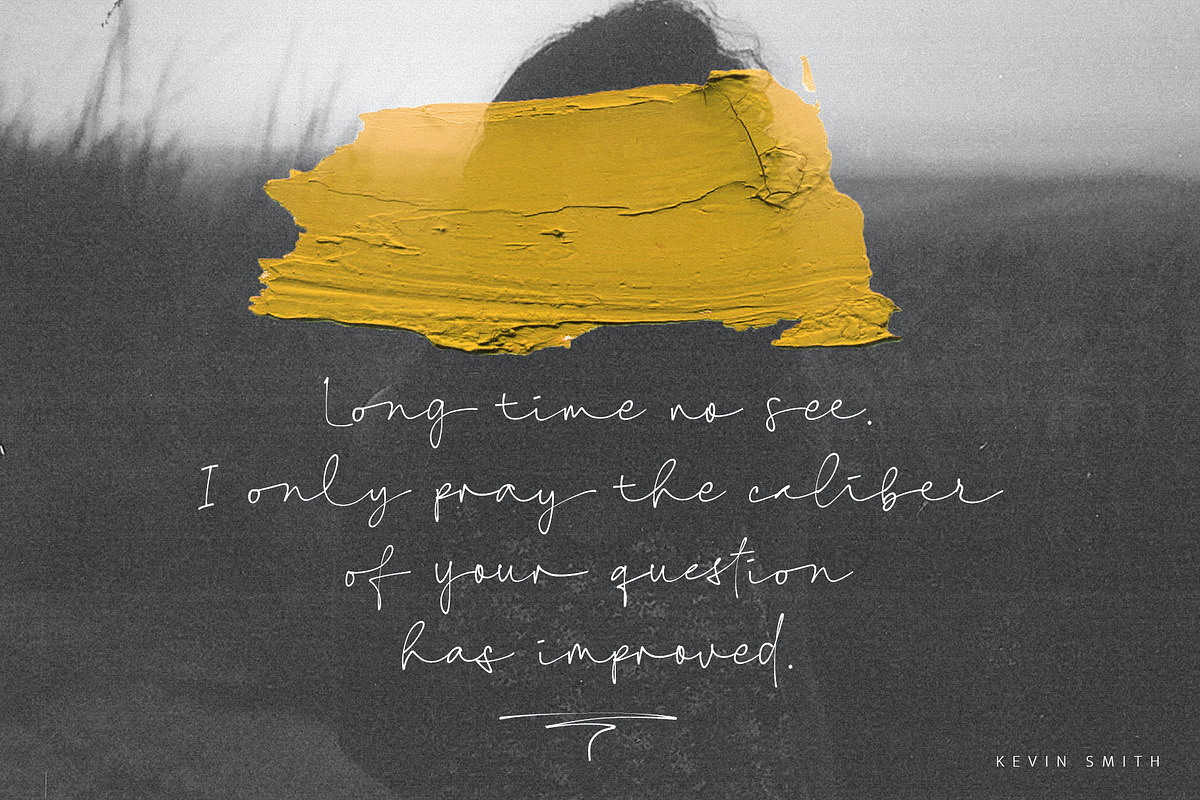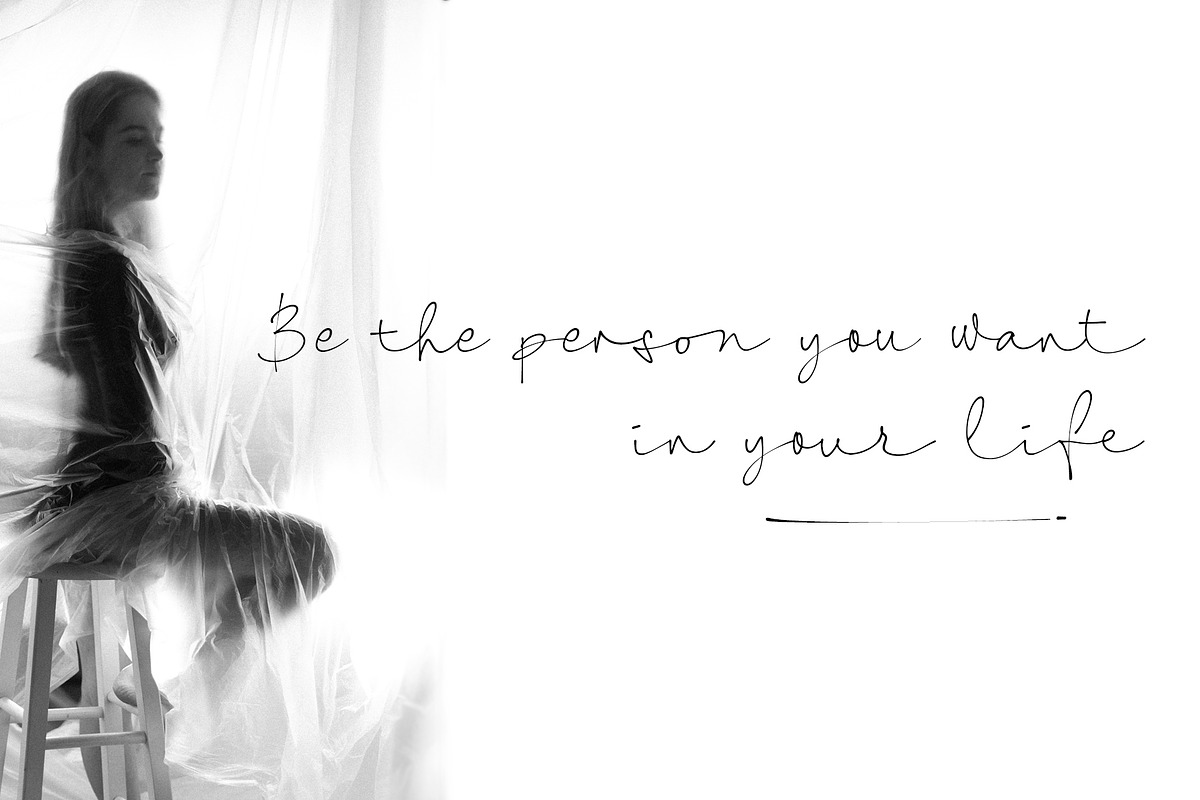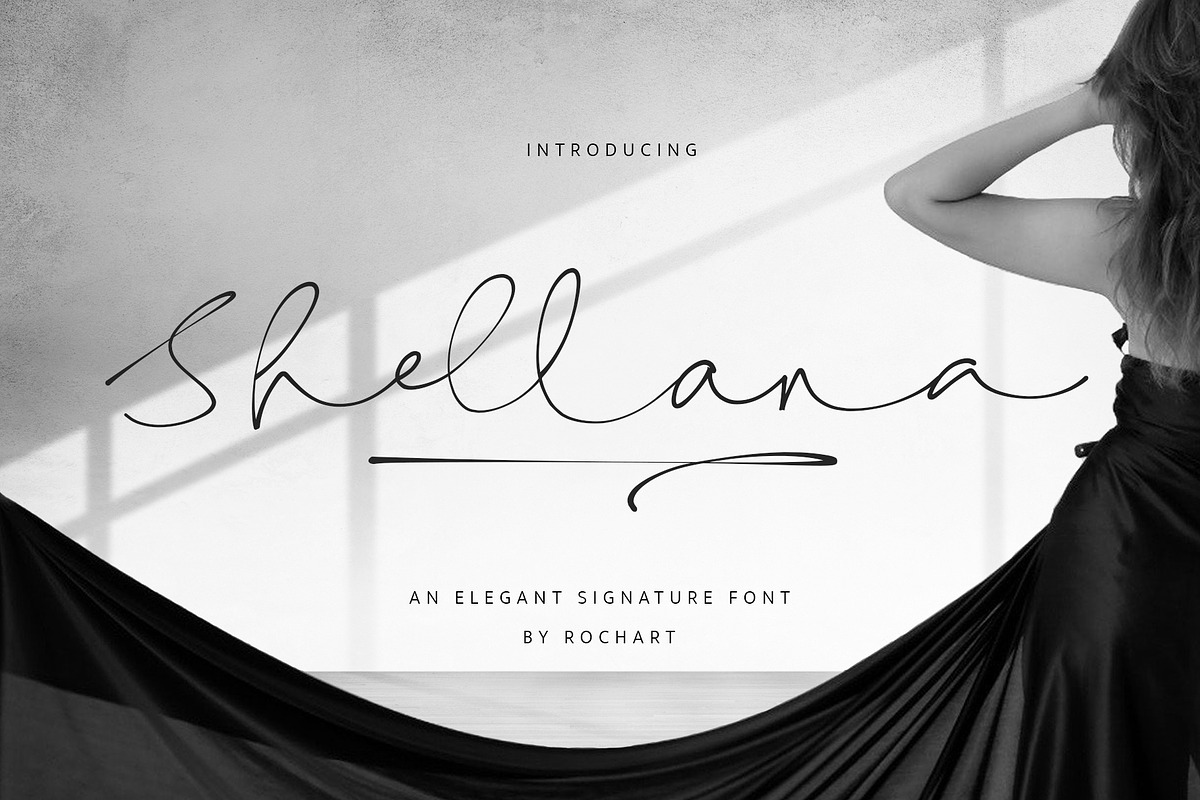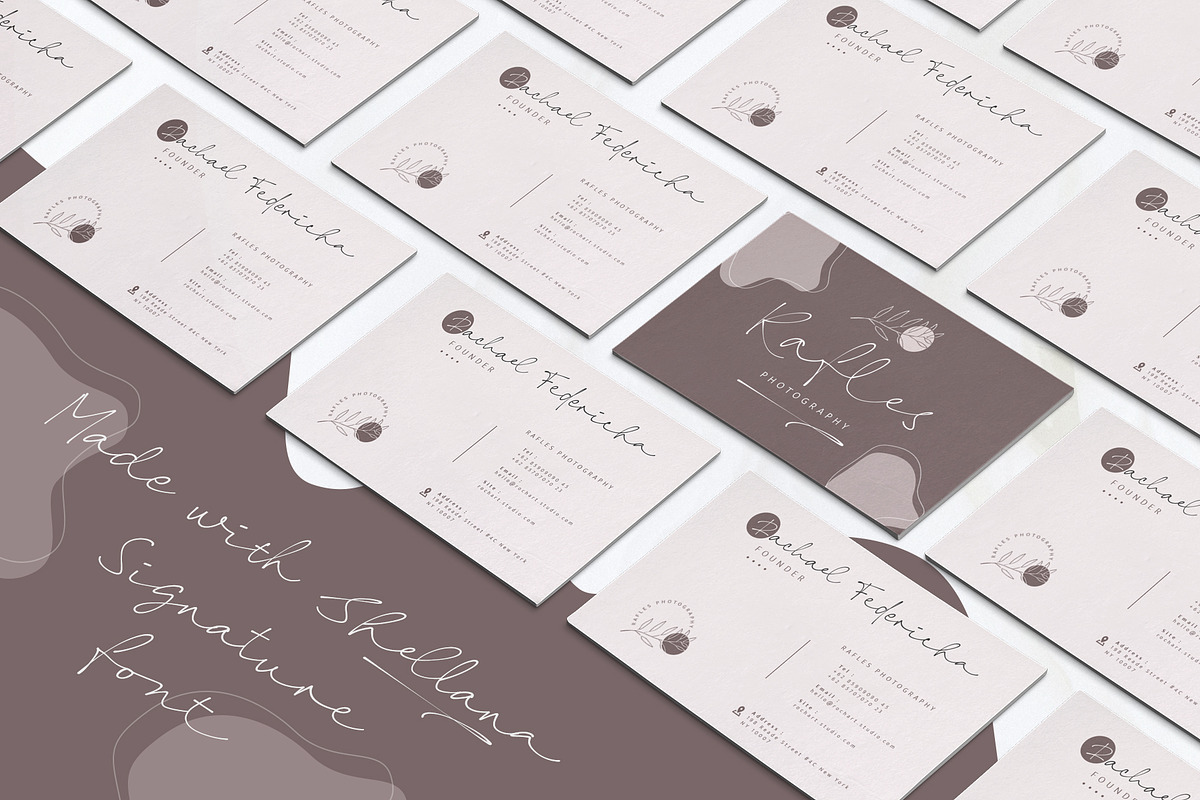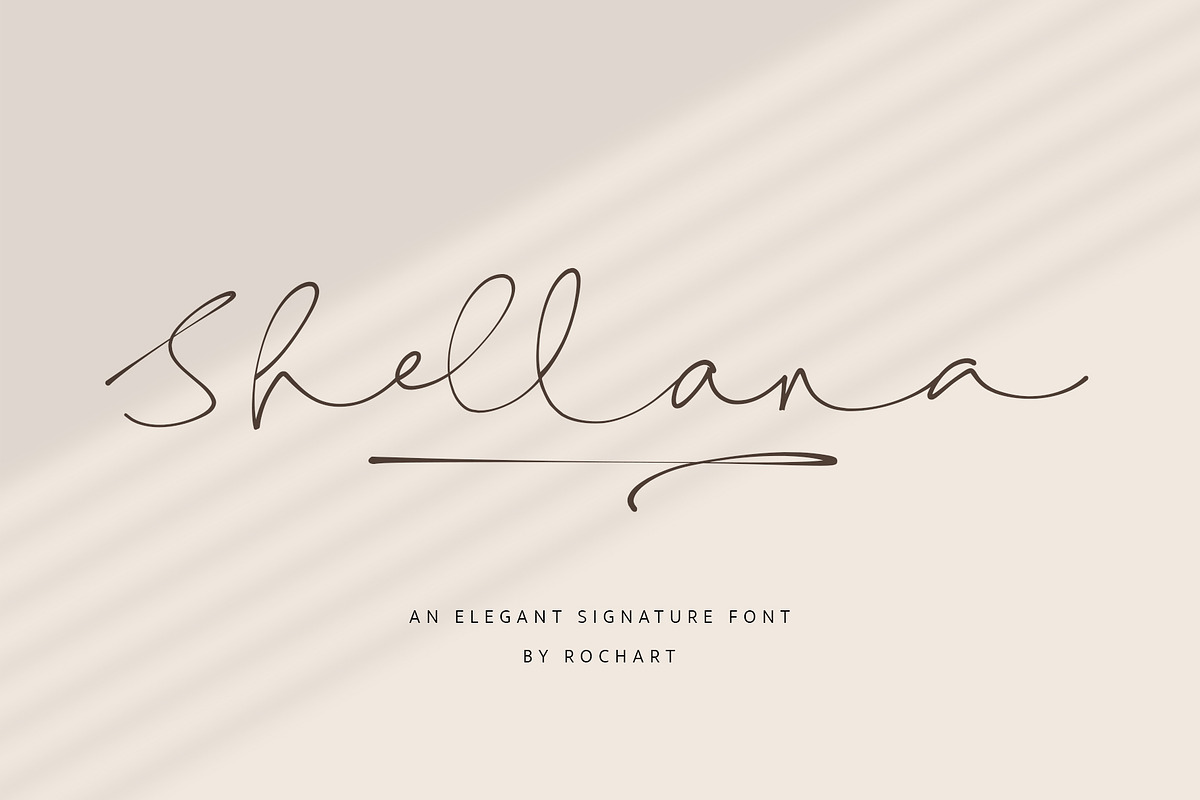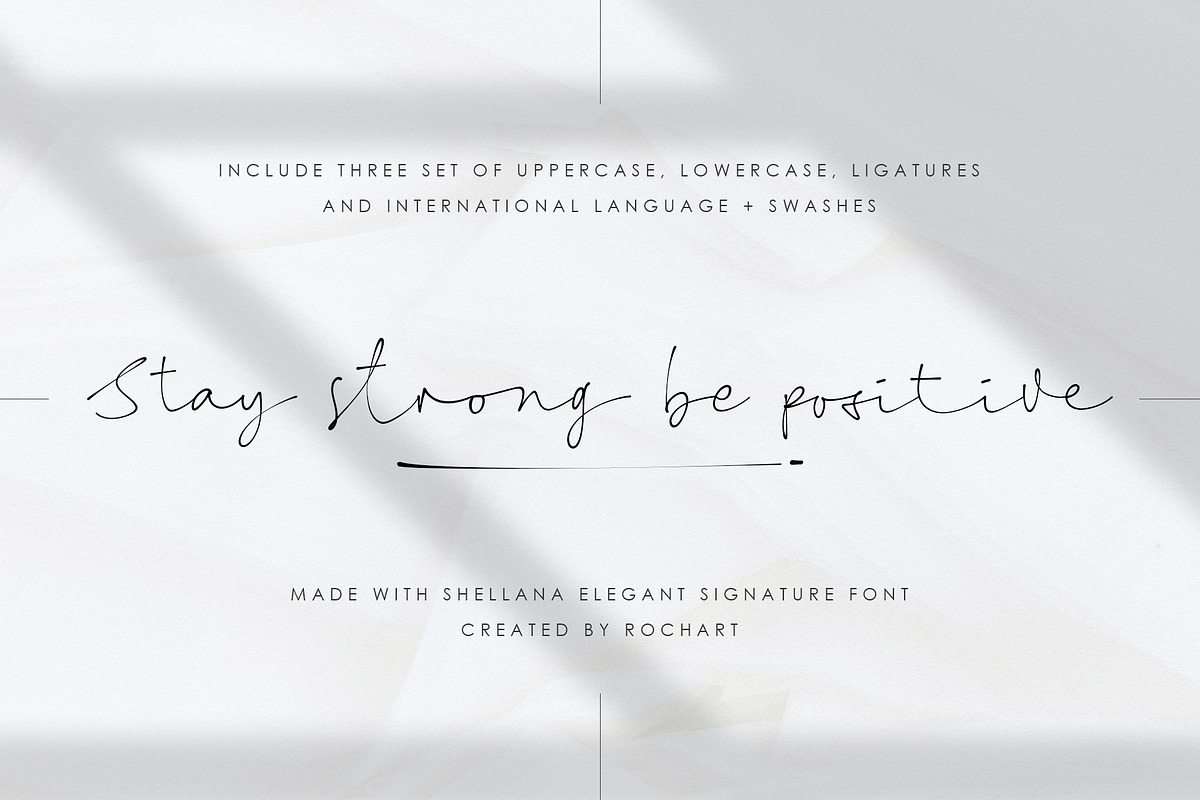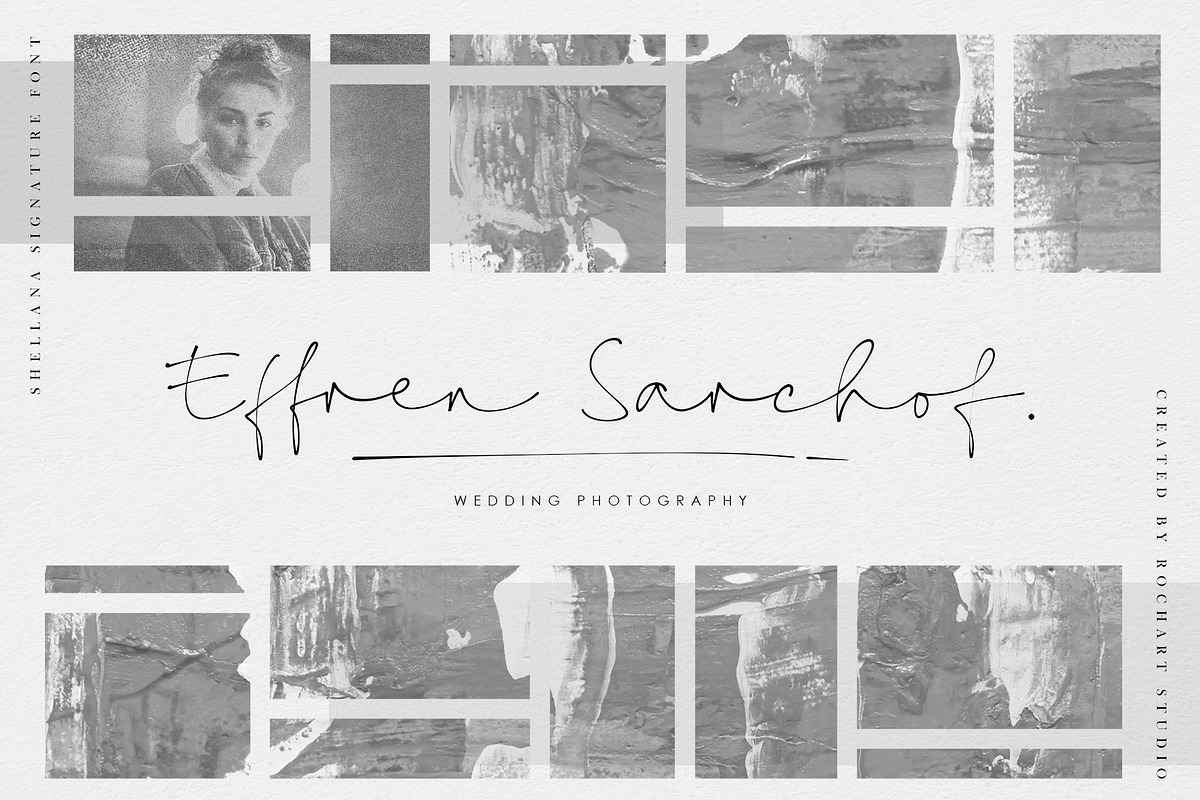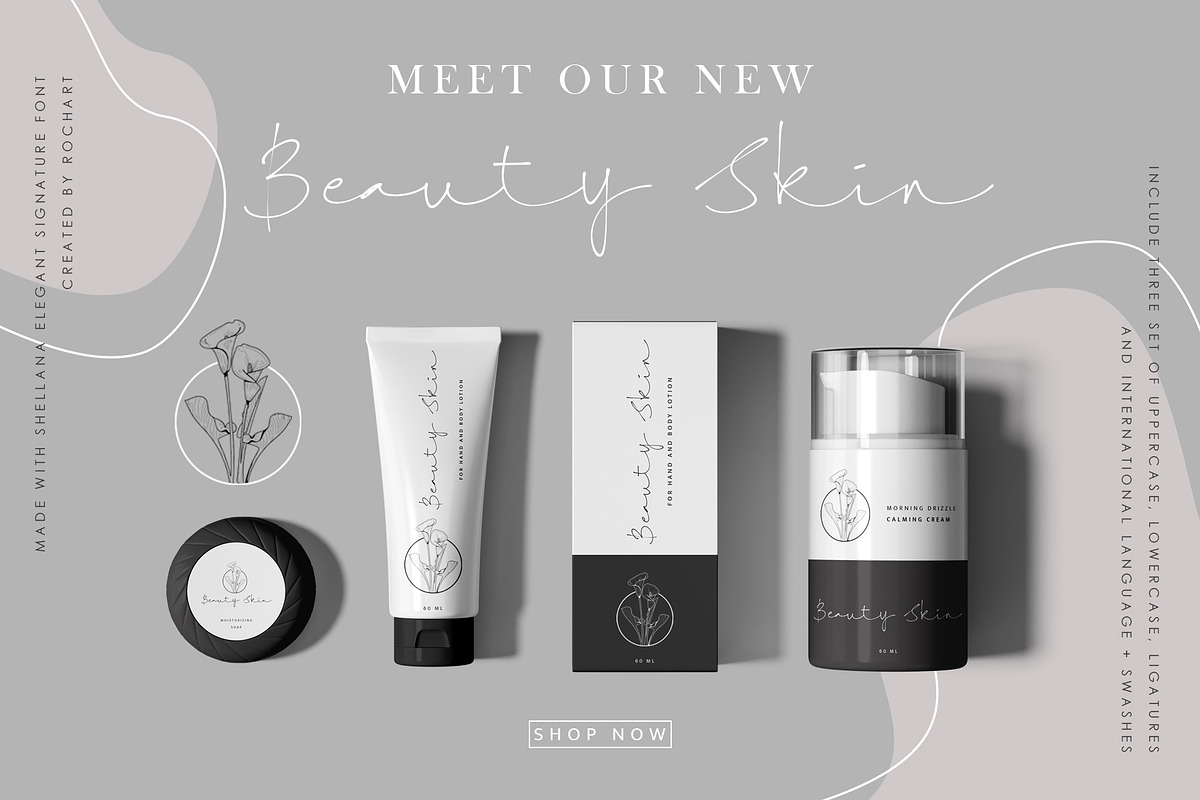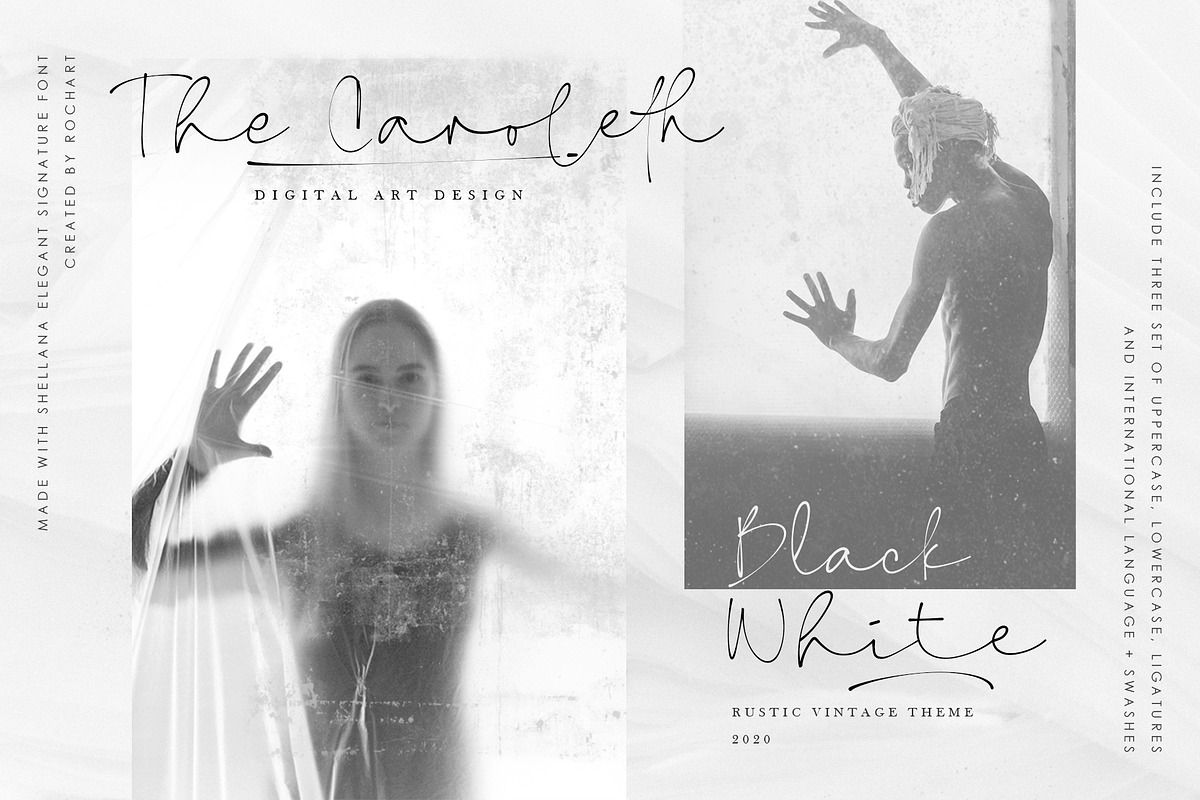
Shellana || Elegant Signature Font
Give your designs an authentic handcrafted feel. "Shellana" is perfectly suited to signature, stationery, logo, typography quotes, magazine or book cover, website header, clothing, branding, packaging design and more. A handwritten script font containing upper and lowercase characters, numerals, a large range of punctuation,International language, ligatures, stylistic alternate and Swashes.
- Shellana Regular
- Shellana Italic 1
- Shellana Italic 2
- Shellana Swashes